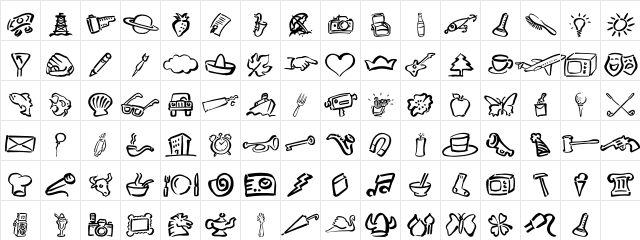
DF Diversities Regular
Design Context for DF Diversities Typeface
DF Diversities is a composed and adaptable typeface that performs quietly and consistently across a wide range of design contexts.